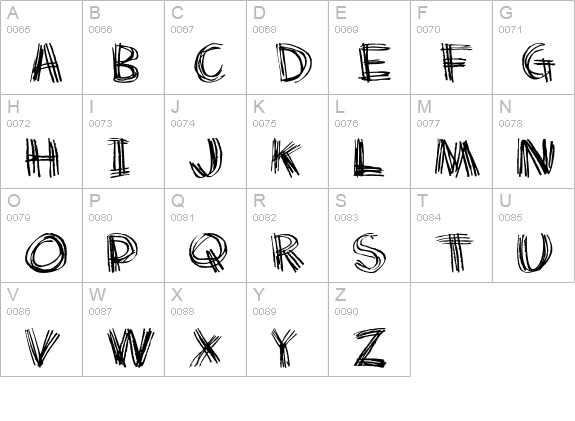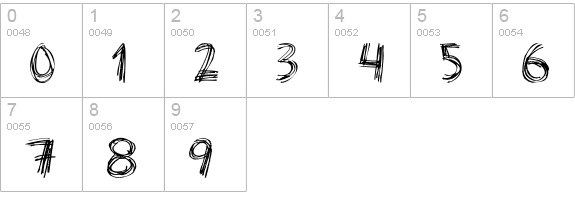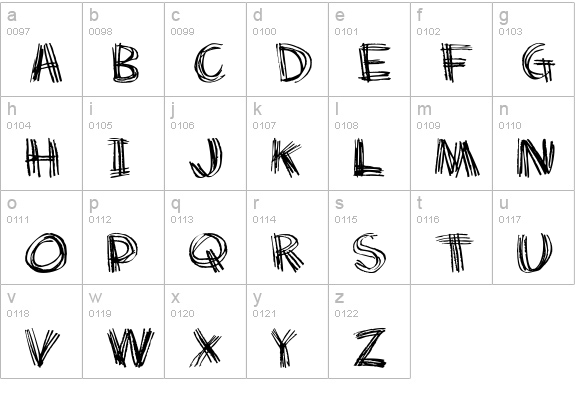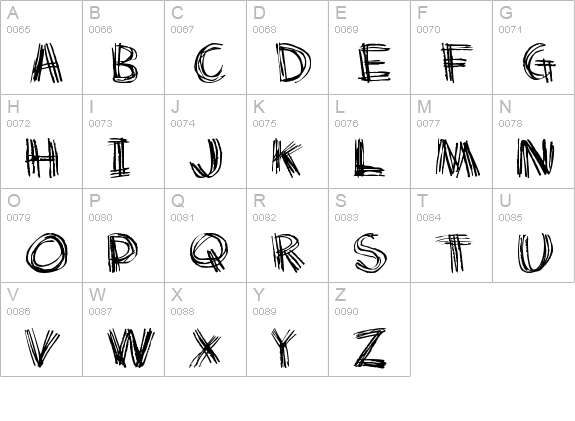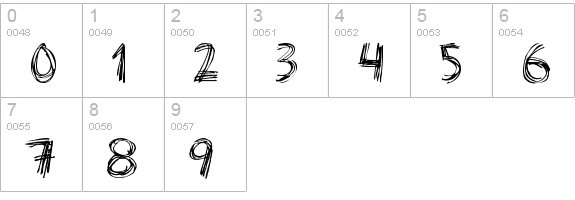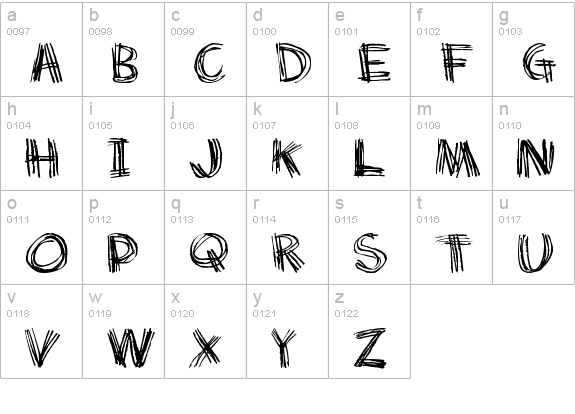
Scratch my back Font Details
Introducing Scratch my back font, a captivating and playful typeface that adds a touch of whimsy to any design project. With its unique scratchy texture and organic strokes, this font exudes a sense of creativity and spontaneity. Each character is carefully crafted to embody a sense of movement and dynamism, making it the perfect choice for projects that require a youthful and energetic vibe. What sets Scratch my back font apart is not only its eye-catching design, but also its accessibility. This font is available for free download at FontsMarket.com, making it easily accessible to designers, artists, and enthusiasts alike. Whether you're working on a personal project or a professional endeavor, Scratch my back font is at your fingertips, ready to elevate your creations to new heights. The versatility of Scratch my back font is another reason to love it. From logo designs to social media graphics, from posters to website headers, this font adapts effortlessly to any context. Its bold and expressive nature ensures that your message will stand out and leave a lasting impression on your audience. Scratch my back font is a true gem for those seeking to infuse their designs with a touch of quirkiness and originality. Its playful nature invites experimentation and encourages you to think outside the box. Let your imagination run wild as you explore the endless possibilities this font has to offer. So why wait? Unlock your creative potential and download Scratch my back font for free at FontsMarket.com. Join the growing community of designers who have discovered the magic of this font and let it inspire your next project. With Scratch my back font, the only limit is your imagination.